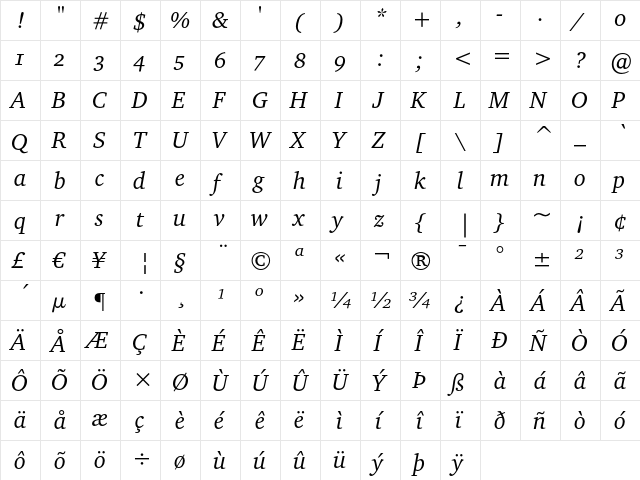
Bitstream Charter Italic OSF
Design Context for Bitstream Charter Typeface
Bitstream Charter is a composed and adaptable typeface that performs quietly and consistently across a wide range of design contexts. The slanted form adds forward momentum and visual energy.
Pro Tip: Use Bitstream Charter for emphasis, pull quotes, and subheadings where its slanted energy can add rhythm to the layout.